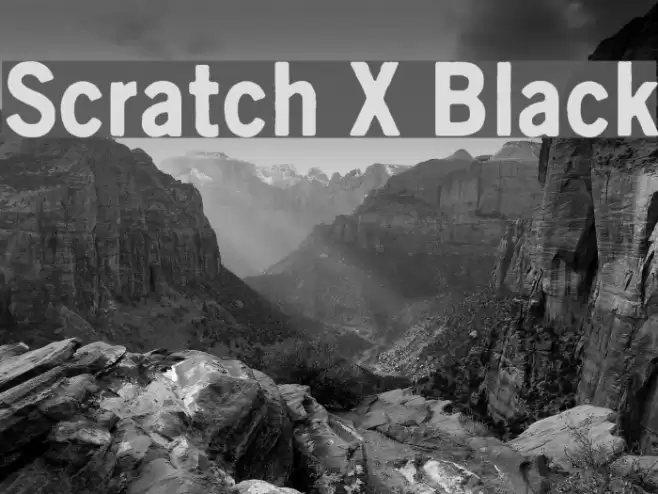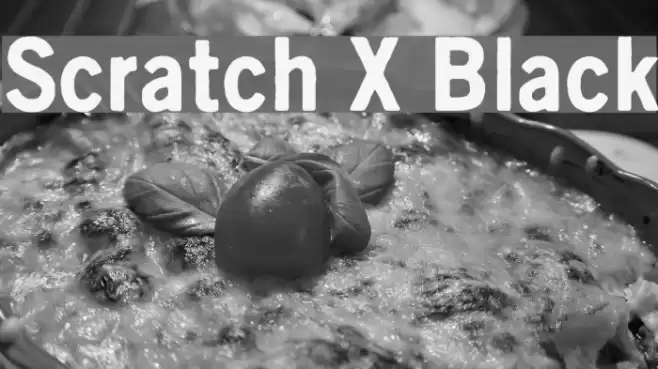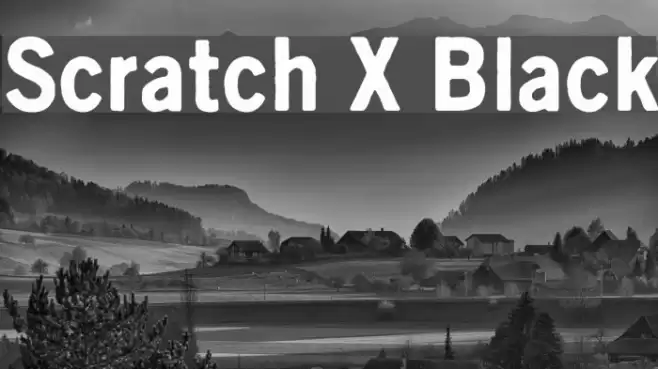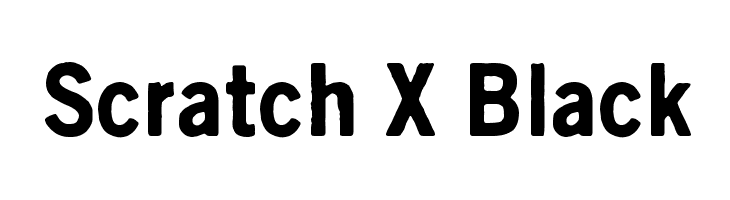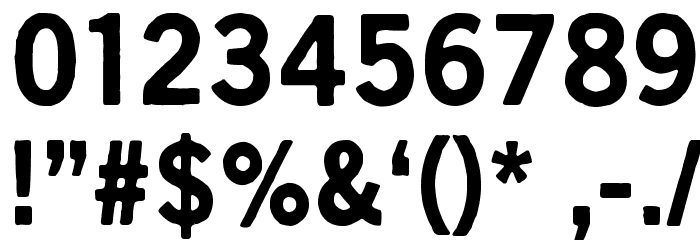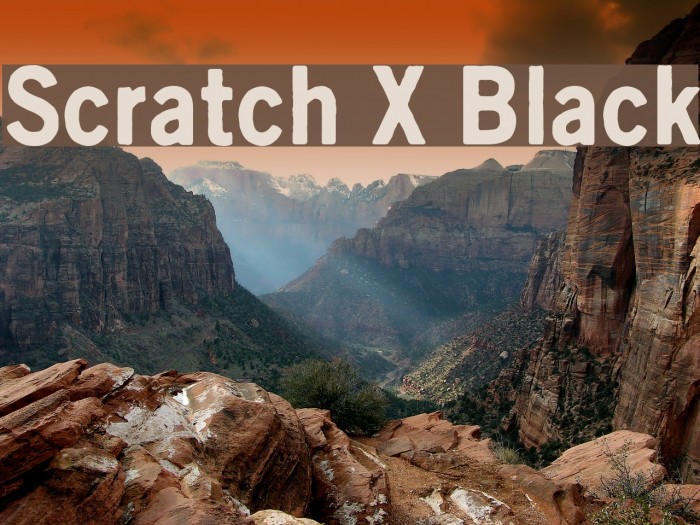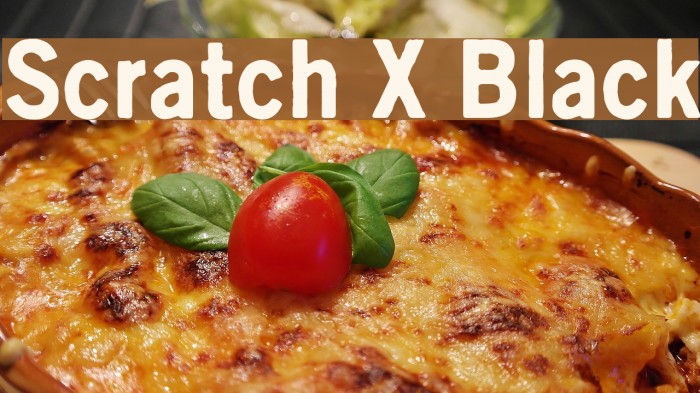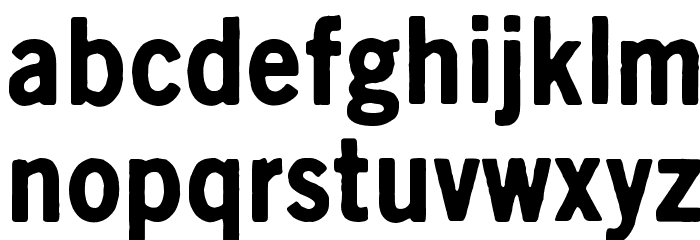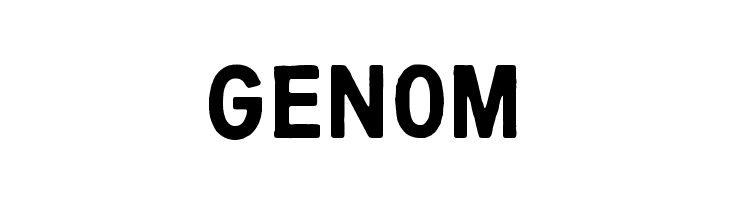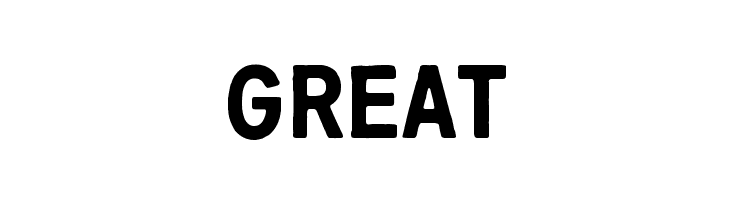
Scratch X Black Font
Scratch X Black Description
This font features a bold and rugged style, characterized by its thick strokes and slightly distressed appearance. The uppercase and lowercase letters maintain a consistent weight, giving the font a strong and impactful presence. The numerals and special characters follow the same bold design, ensuring uniformity across all glyphs. Its rough texture adds a handcrafted feel, making it suitable for projects that require a touch of authenticity and boldness. The font's design is straightforward yet striking, making it versatile for various creative applications.
A bold, rugged font with a distressed, handcrafted appearance from Distorted Eroded fonts.
- Proposed Projects: Ideal for posters, branding, packaging, and any design needing a bold, authentic touch.